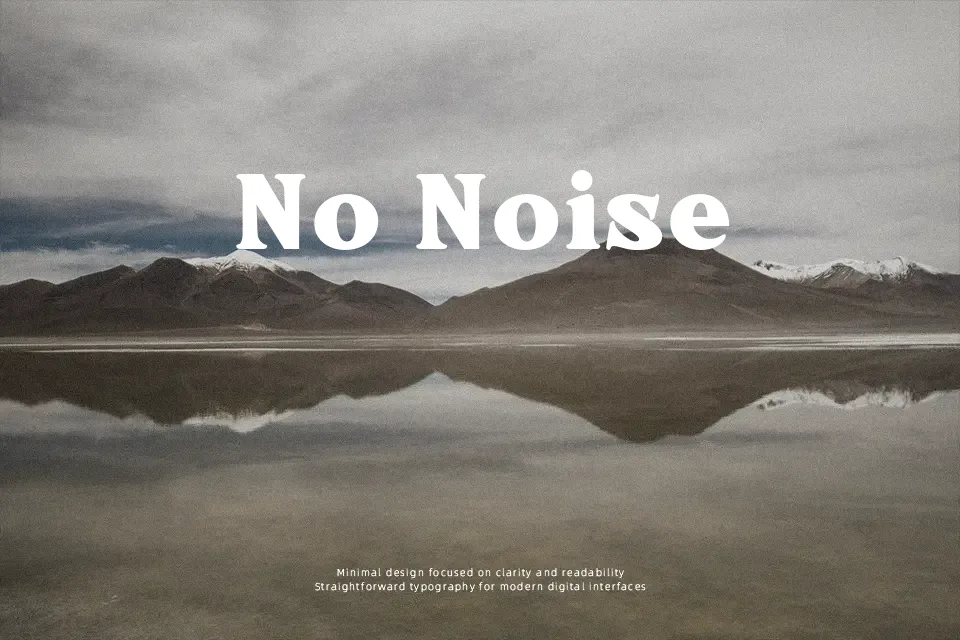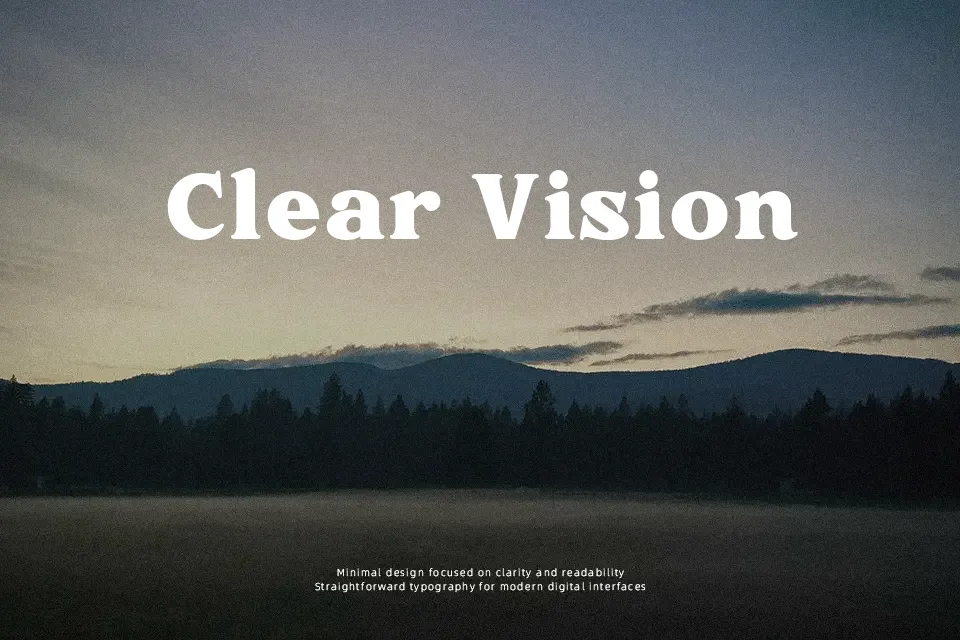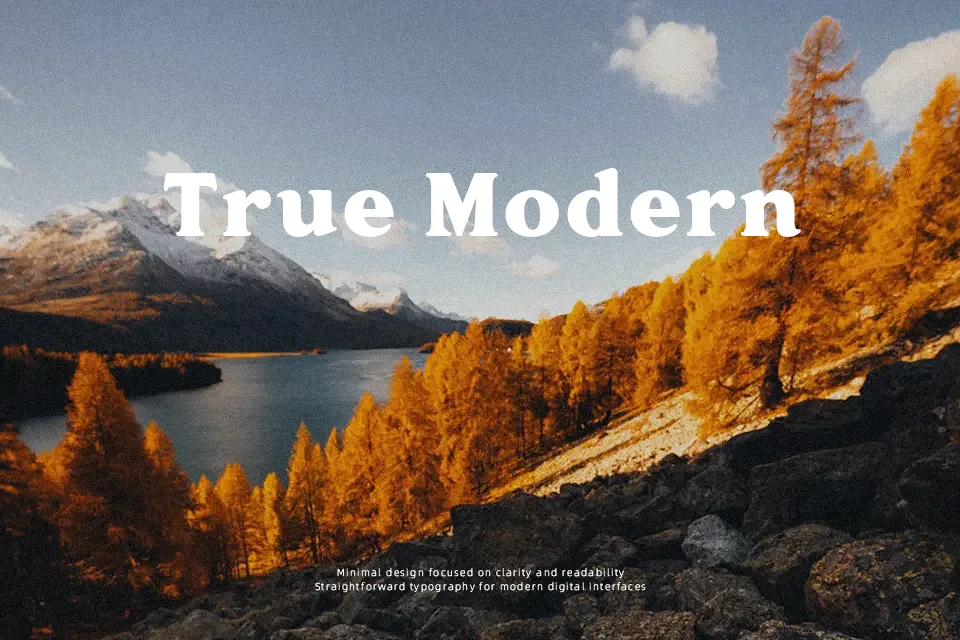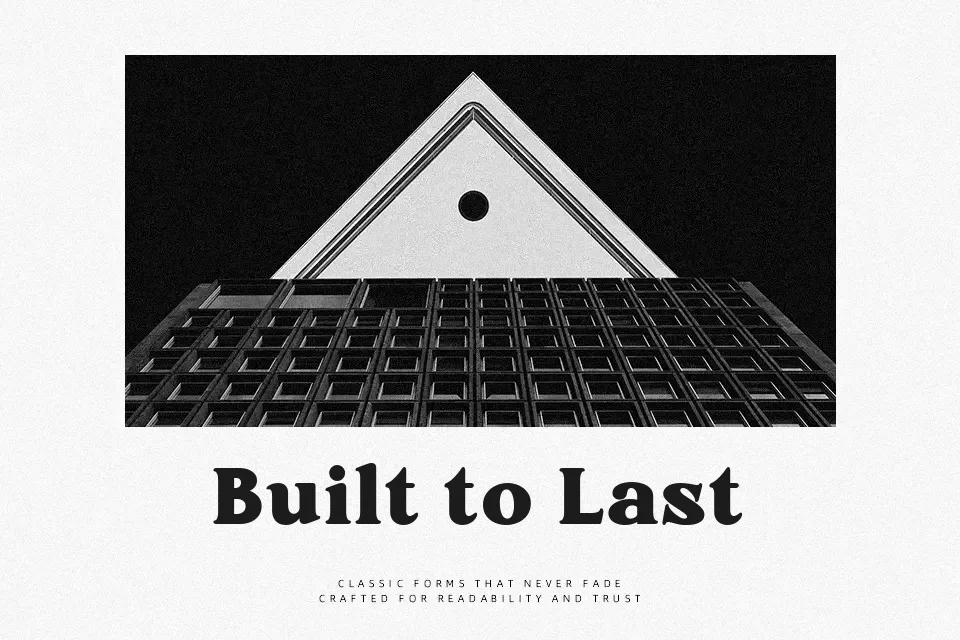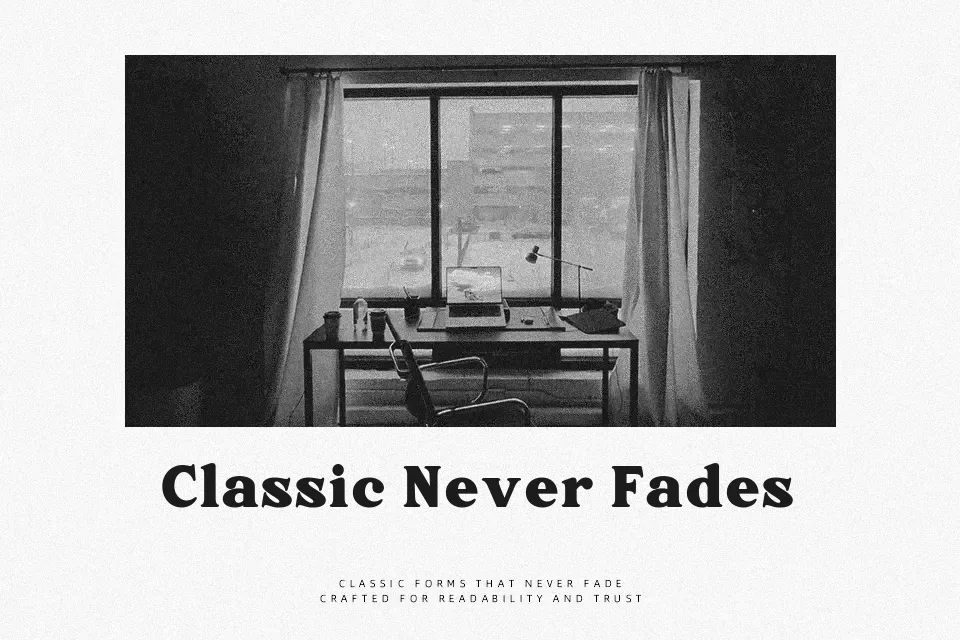
The Mietlor Font
Designed by Alit Design
The Mietlor Font is a retro display serif built with bold proportions, expressive curved terminals, and prominent thick-to-thin stroke contrast. The letterforms feature moderately condensed horizontal proportions paired with comfortable letter spacing, keeping character shapes well separated in title treatments. High contrast between vertical stems and delicate serifs reinforces structural presence, delivering crisp visual definition when scaled up for display work. The typeface excels in stylized poster titles, vintage beverage labels, and retro magazine headlines where personality drives the layout. Extended body text reduces reading comfort as the heavy contrast and stylized terminals disrupt continuous prose tracking.
– vintage product packaging
– music album covers
– editorial magazine headlines
– retro event posters
– continuous body text
– mobile interface labels
– spreadsheet data
– technical documentation
Perfect for branding, editorial, and headline, with a bold and display style.